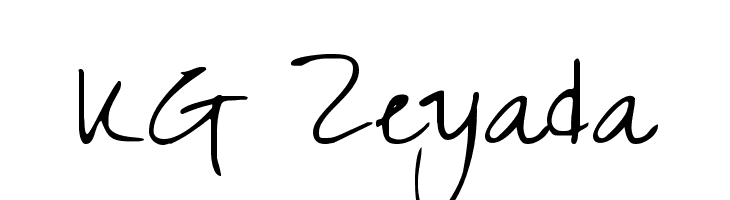
A fluid and dynamic handwritten font with slanted, connected letters.
A hand-stitched, embroidery-style font with a playful and crafty appearance.
A playful, casual handwritten font with irregular strokes.
A collection of graphic symbols and images, each with unique and intricate designs.
A casual, handwritten font with a slight slant and smooth, rounded characters.
A bold, distressed font with a vintage, rubber stamp aesthetic.
( Fonts by www.kimberlygeswein.com - Kimberly Geswein )
A lively handwritten font with fluid strokes and playful character.
( Fonts by www.kimberlygeswein.com - Kimberly Geswein )
A casual, handwritten font with a playful and expressive style.